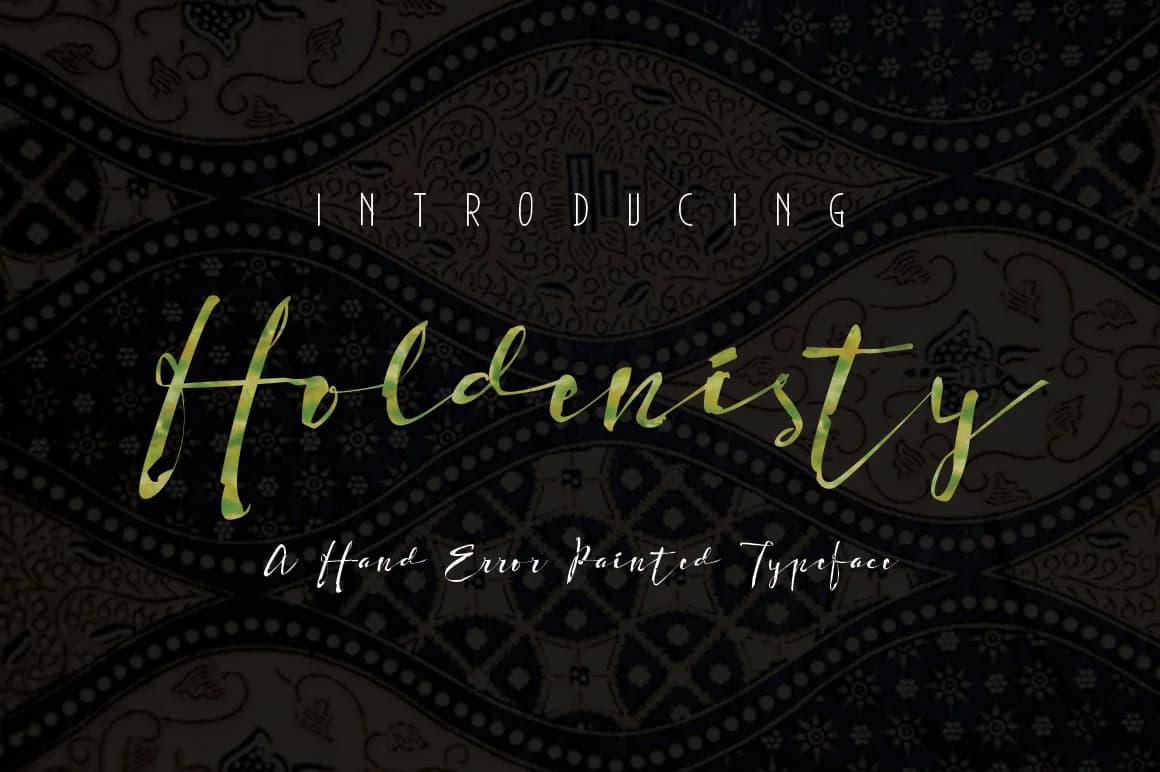
1 / 6About Holdenisty Font
Holdenisty by beeart009 is a handwritten script typeface that captures the organic, imperfect charm of raw pen-on-paper lettering. The rough, textured aesthetic gives designs an authentic, hand-crafted quality that feels warm and approachable. This font shines when you need genuine handwritten character without losing legibility. It's excellent for rustic wedding stationery, where couples want to balance elegance with an intimate, personal touch. The unpolished quality also makes it ideal for artisanal product labels, think small-batch cosmetics or locally-made jams, where authenticity signals craftsmanship. Graphic designers frequently turn to Holdenisty for indie music posters and concert flyers that demand visual personality, and it works beautifully for vintage-style book covers that need to feel nostalgic without appearing overly decorative. The roughness isn't a flaw; it's a feature. That tactile, slightly irregular quality prevents the script from feeling corporate or sterile, making it perfect for any project where imperfection equals character. Whether you're designing handwritten-style social media graphics or creating rustic signage for small businesses, Holdenisty delivers the aesthetic of genuine penmanship with the consistency of digital typography. Add Holdenisty to your font collection on Creative Fabrica to bring authentic character to any project that needs genuine handwritten charm.
Holdenisty Font is a script font that shines as a display or heading face. Pair it with a clean sans-serif or serif font for body text β the contrast creates a clear hierarchy while the two styles stay balanced and easy to read.
Holdenisty Font
by beeart009